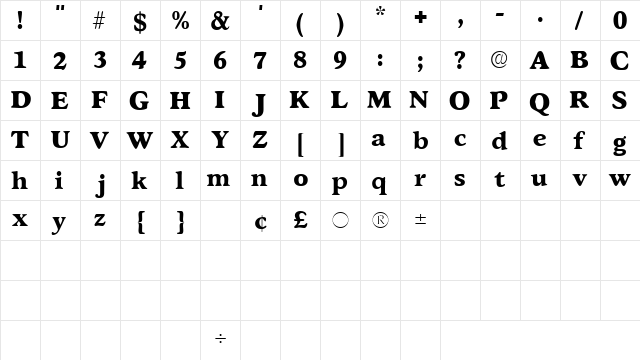
GrafeSSK Regular
Design Context for GrafeSSK Typeface
GrafeSSK takes a measured approach to typography — its balanced proportions and neutral character make it a reliable workhorse for both digital and print work.